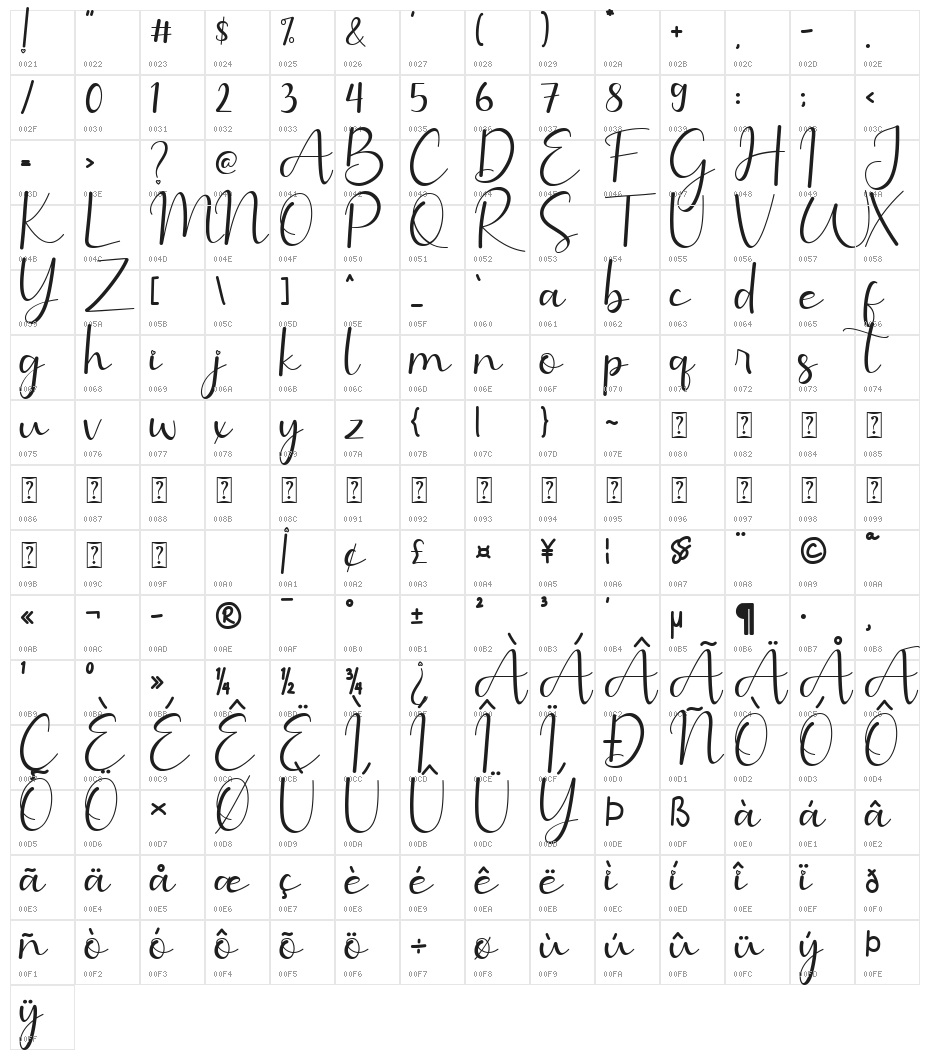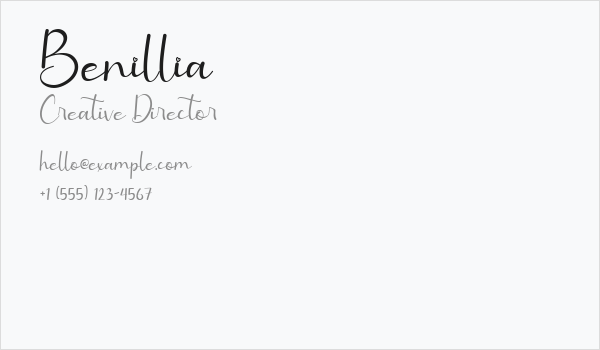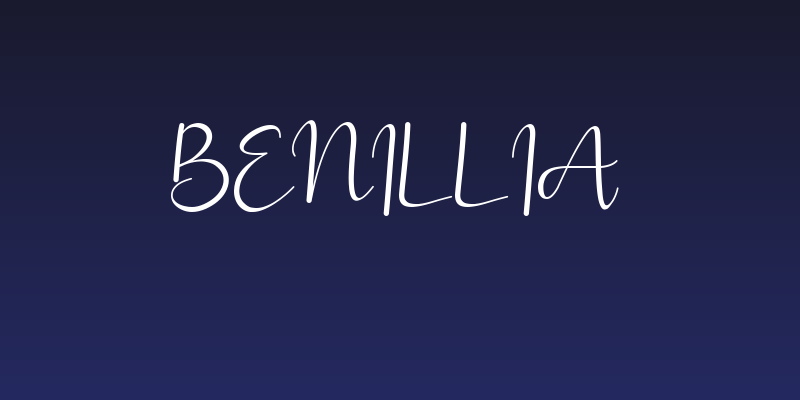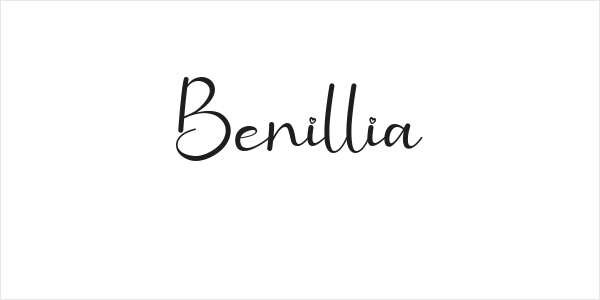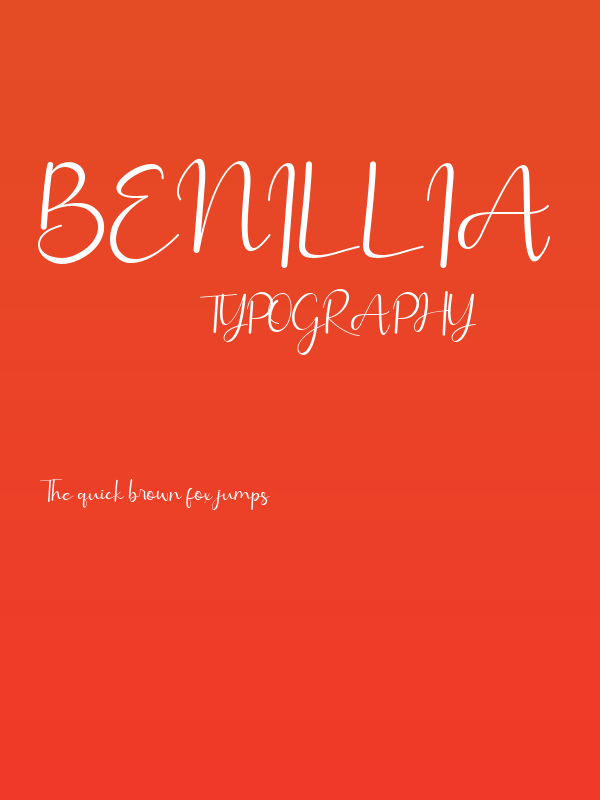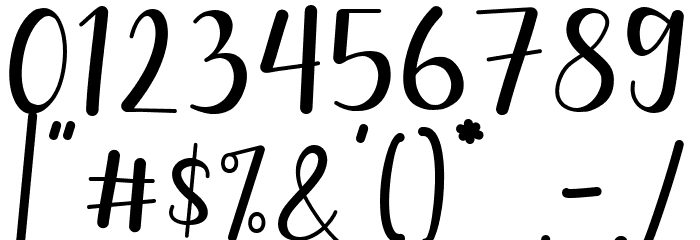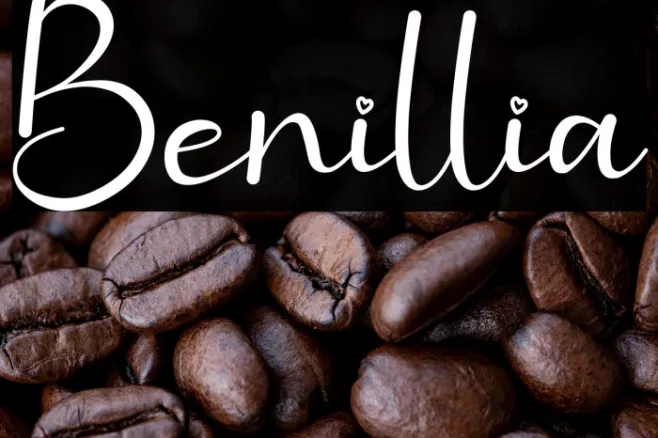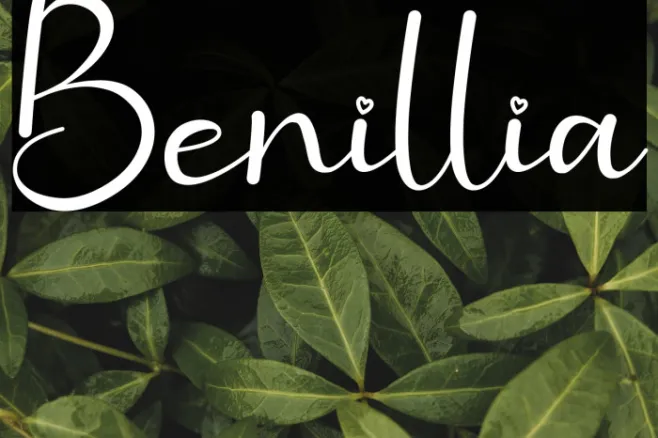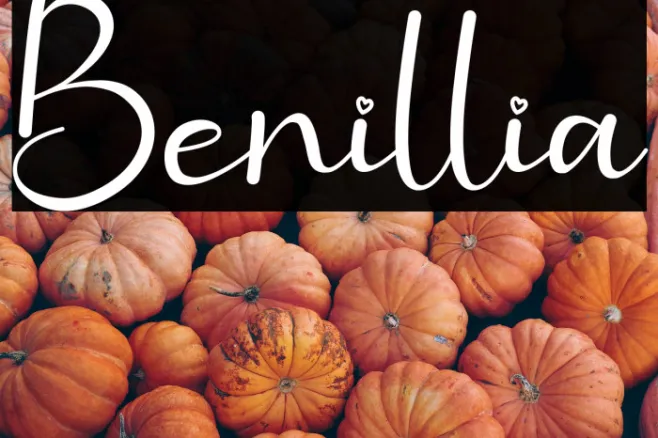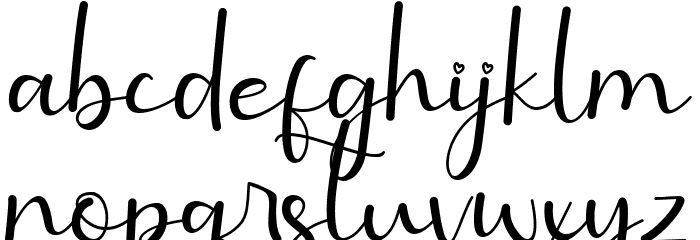
Benillia Font
Benillia Description
This font features a playful and elegant script style with a handwritten appearance. The uppercase letters are characterized by their flowing, cursive lines, while the lowercase letters maintain a consistent, smooth stroke that adds to the font's charm. The numerals are clear and legible, with a slight slant that complements the overall style. Special characters are thoughtfully designed to match the font's aesthetic, making it versatile for various uses. The font's balance between casual and sophisticated elements makes it suitable for creative projects.
| Use Case | Logos, Invitations, Social Media |